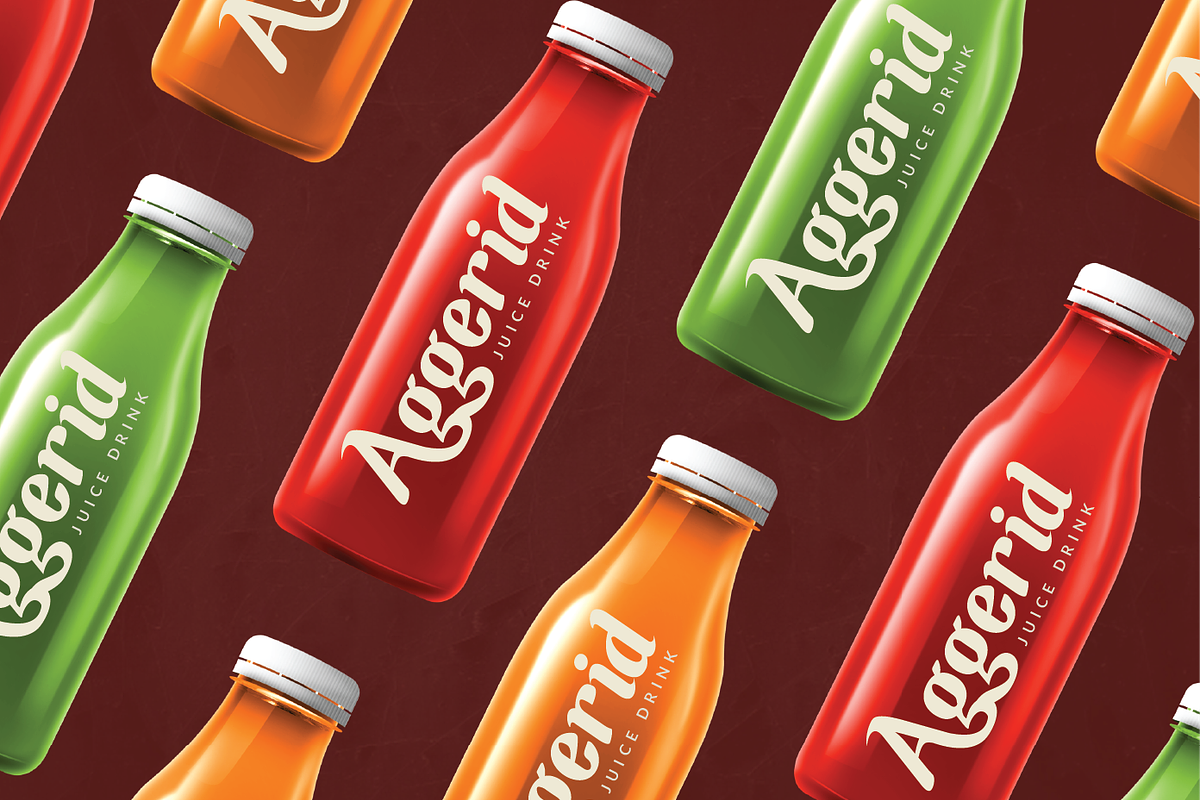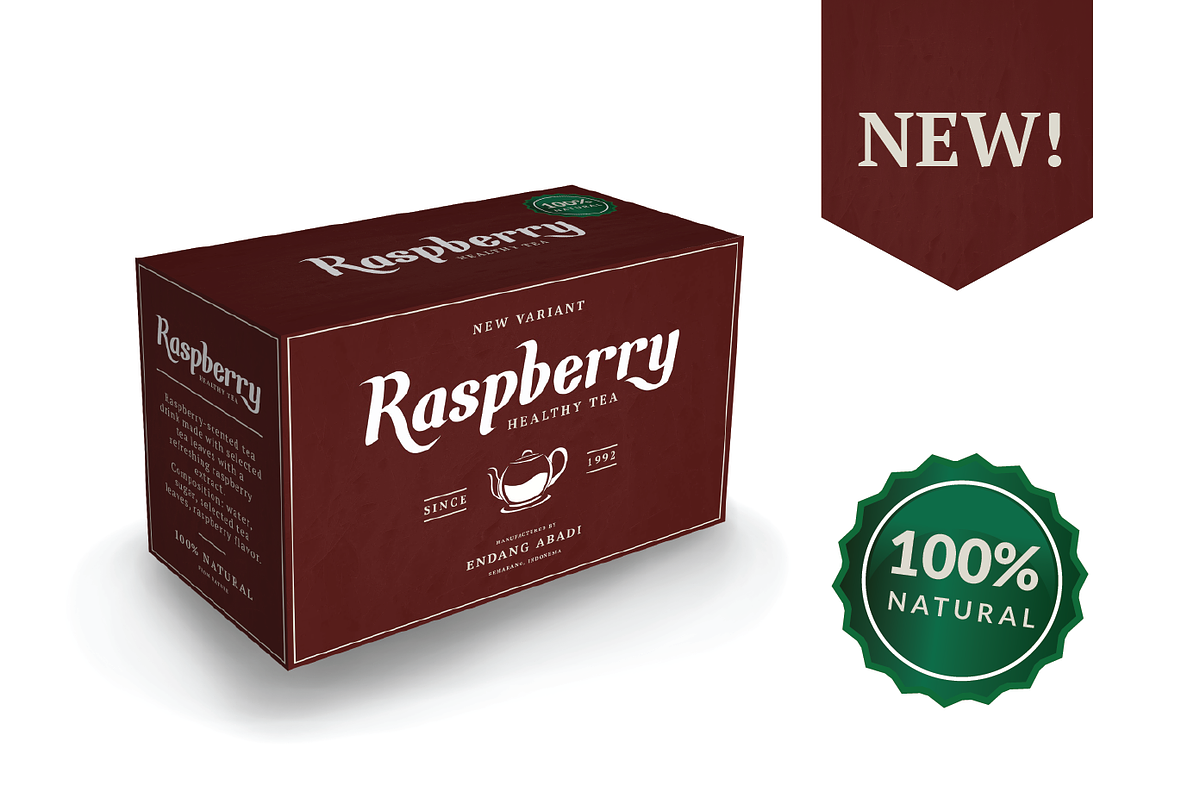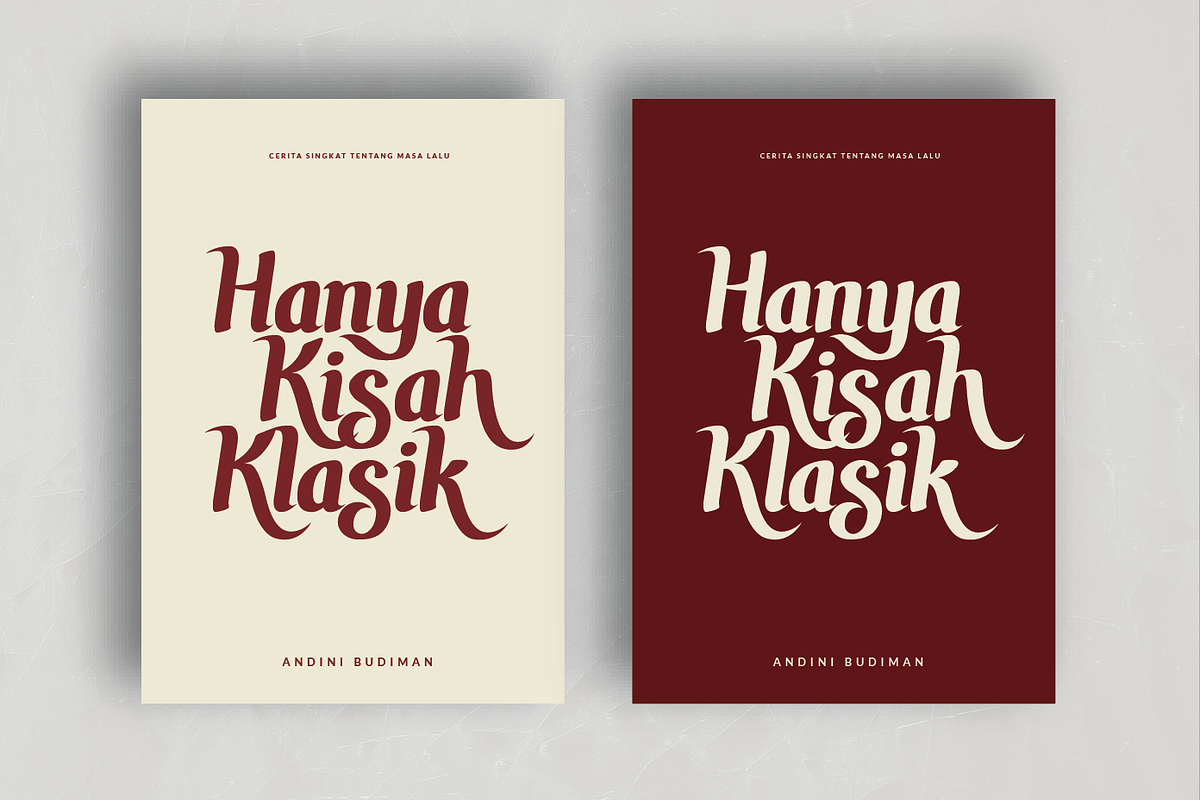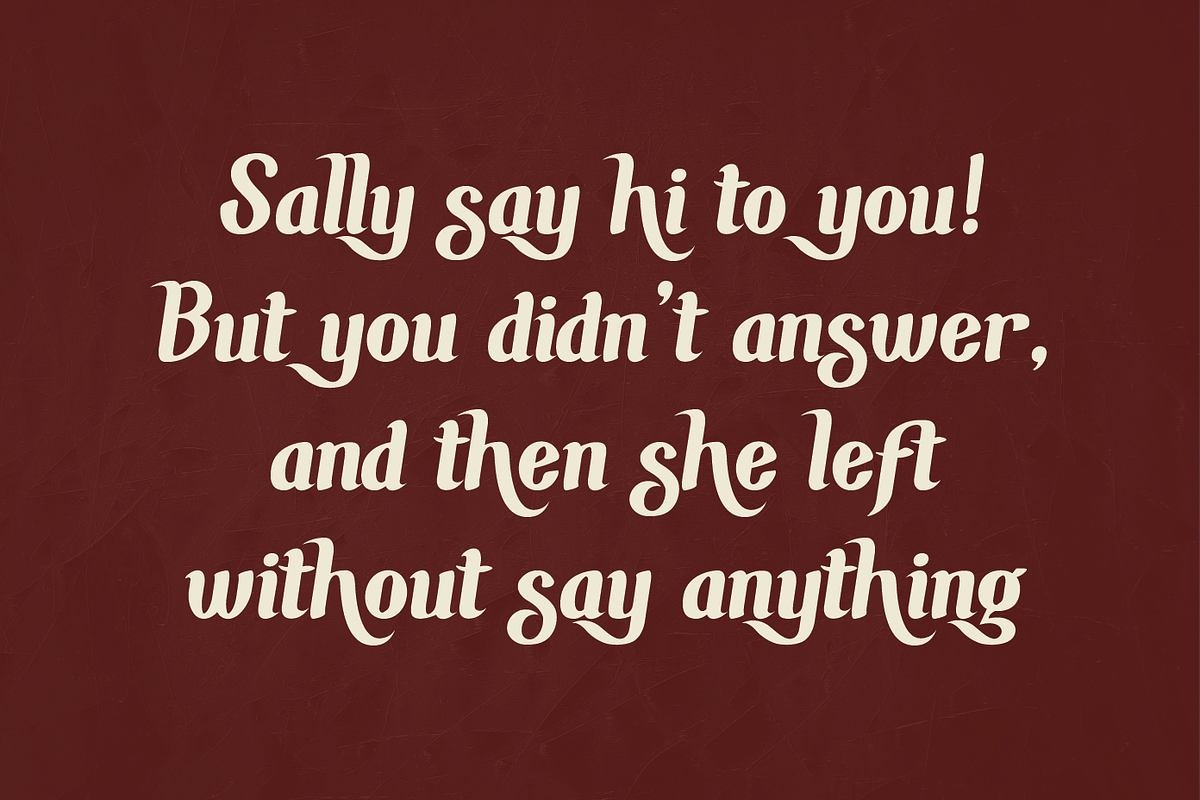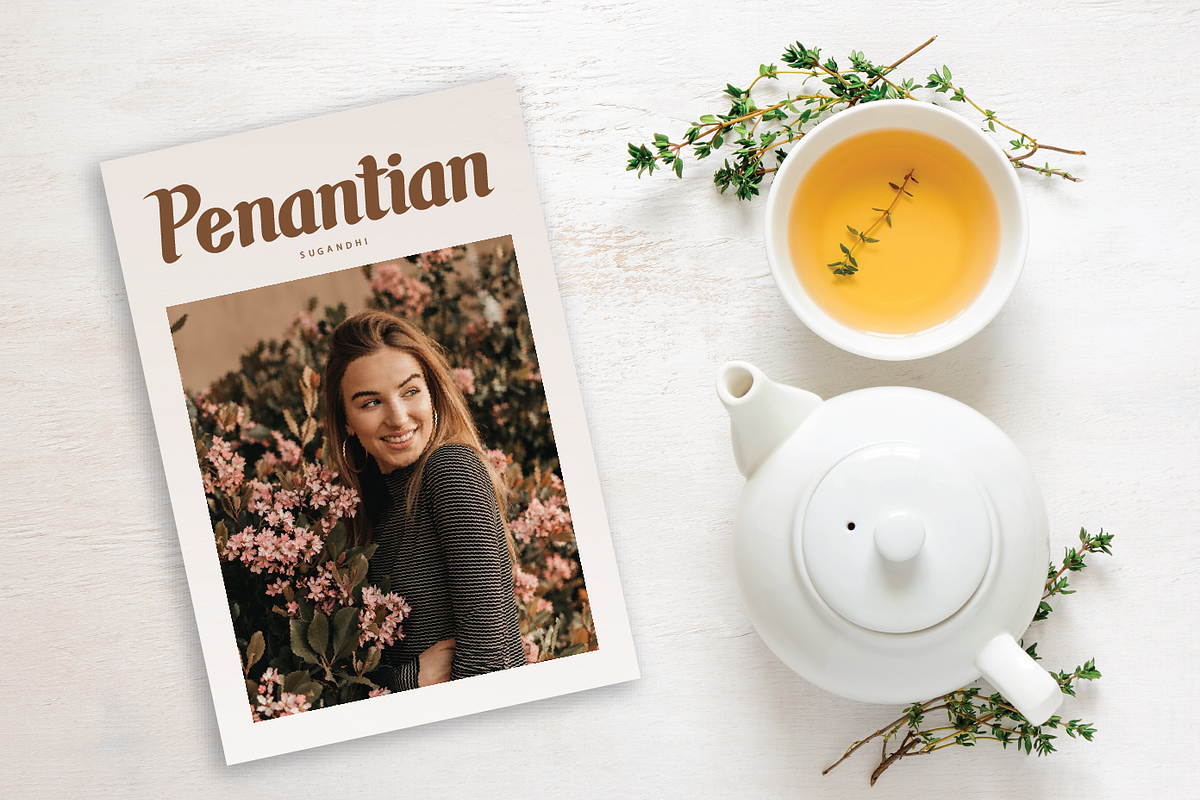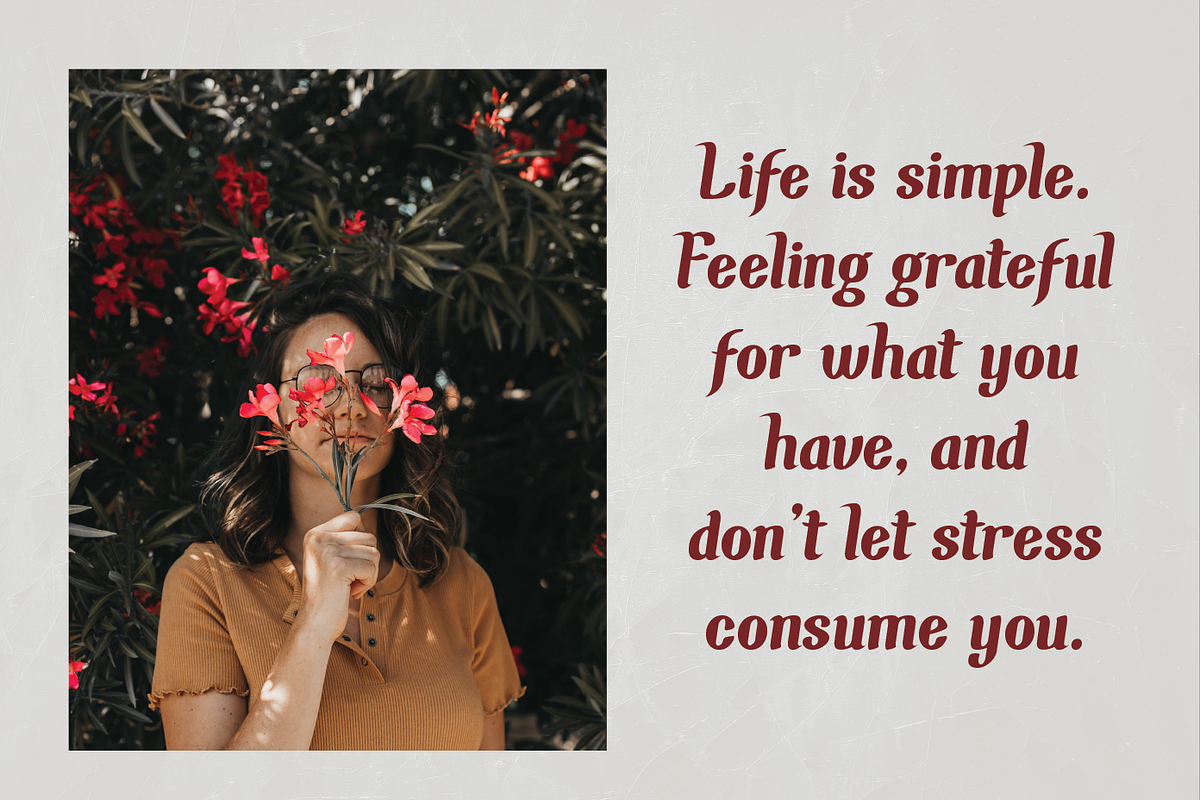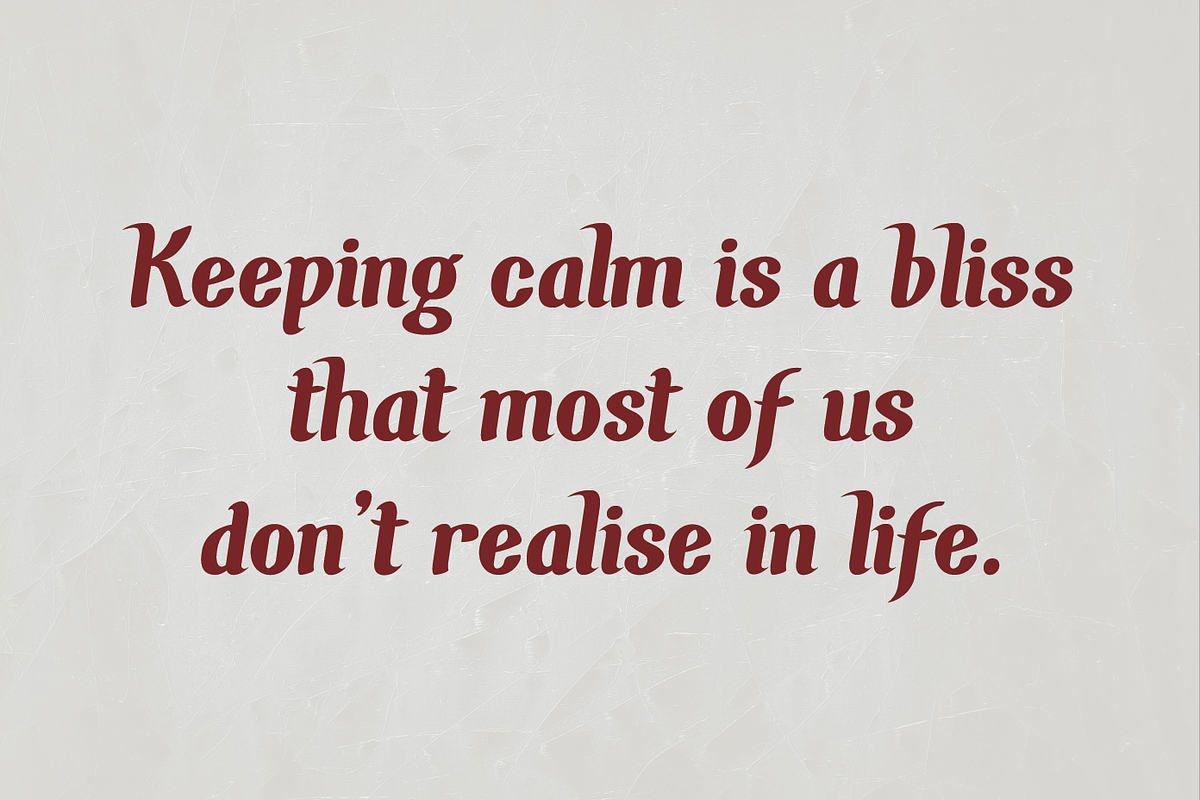
Chunky Wally Font
This is my new font Chunky Wally. Vintage serif font with beautiful alternate characters to support your brand/project.
Chunky Wally is perfect for projects such as logos & branding, invitation, stationery, wedding designs, social media posts, advertisements, printed quotes, product packaging, product designs, label, photography, watermark, special events or anything.
Why Chunky Wally Font is worth a look
Chunky Wally Font by Patria Ari (P4tcreativa) fits naturally into Branding, posters, packaging, typography.